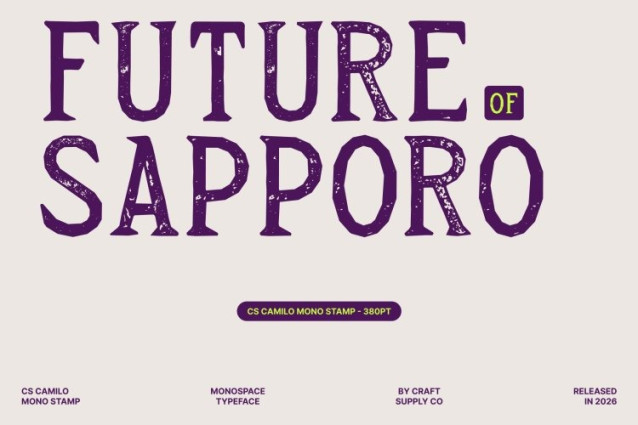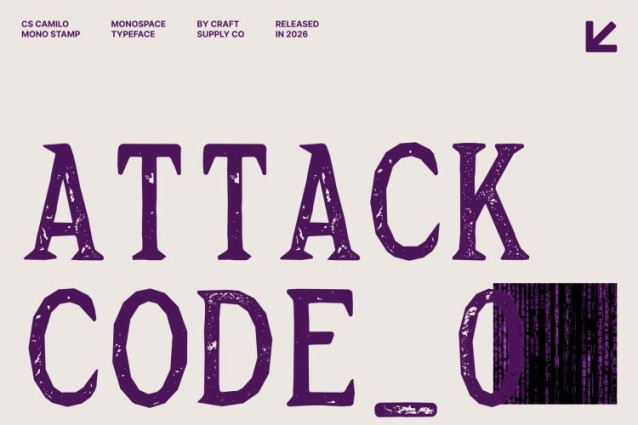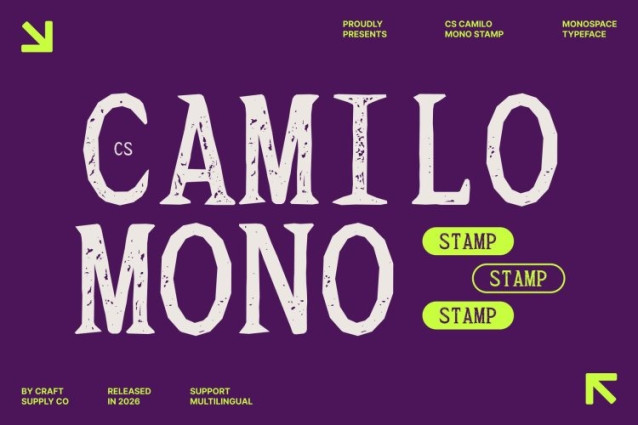
CS Camilo Mono Stamp Font
CS Camilo Mono Stamp Font is a refined serif font that combines the discipline of monospaced typography with a condensed structure for efficient, organized layouts. Each character occupies equal width, creating a consistent rhythm that enhances clarity and alignment. The condensed proportions allow more content to fit comfortably within limited space, making the font both practical and visually sophisticated.
Intricate Serifs with Artistic Stamp Character
Enhanced with a distinctive stamp effect, this font introduces subtle distressed textures and ink-like imperfections that evoke the charm of traditional printing. These vintage-inspired details enrich the intricate serif forms, adding depth and personality while preserving the font’s structured and precise appearance. The result is a typeface that feels both technical and artistically expressive.
Timeless Style with Functional Versatility
The combination of monospaced precision, classic serif detailing, and textured stamp character creates a balanced design that bridges tradition and modernity. Its clear structure ensures readability in technical contexts, while its elegant serif shapes add authority and visual refinement.
Perfect for Editorial, Technical, and Vintage Design
This is ideal for formal documents, editorial layouts, branding, and retro-inspired print designs. Its unique blend of monospaced order, condensed efficiency, and vintage stamp texture makes it a versatile typeface that communicates professionalism, heritage, and distinctive visual character.